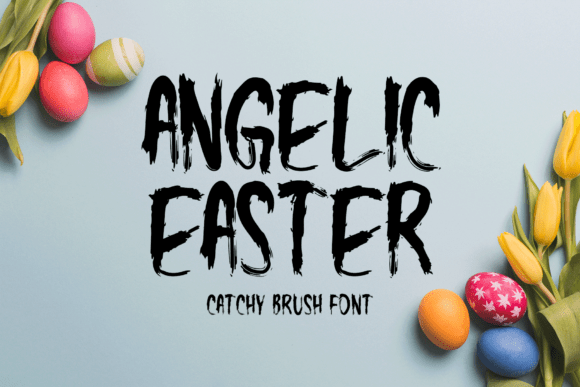
The Angelic Easter Font: Elevate Your Designs with Elegance and Creativity
I’ll never forget the time I was working on a client’s Easter-themed project, and I just couldn’t find the right font to bring it all together. The design needed something special – a touch of elegance, a dash of creativity, and a whole lot of personality. That’s when I stumbled upon the Angelic Easter font, and let me tell you, it was love at first sight! 💕
Angelic Easter is a beautifully handcrafted brush display font that brings a touch of sophistication and artistic flair to any project. Whether you’re designing stationery, logos, t-shirts, or print materials like posters and flyers, this font adds a unique and stylish touch. It’s also perfect for digital applications, including website headers, music covers, image sliders, and photo frames, ensuring your designs stand out with style and personality.
• 💫 Unique and elegant brush strokes that add a touch of sophistication to any design
• ✅ Highly versatile and adaptable to various design projects, from print to digital
• 🎨 Beautifully crafted with attention to detail, making it perfect for high-end designs
• 👍 Easy to read and understand, even in smaller font sizes
The Not-So-Perfect Bits 🤔
• ⚠️ Limited use in very small font sizes, as some details may get lost
• 🤔 Might not be the best fit for very formal or traditional designs, as it has a more artistic vibe
4. Experiment with OpenType features, such as glyphs and stylistic alternates, to add more personality to your text
4. Explore the font’s features, such as ligatures and swashes, to add more flair to your design
The Story Behind Angelic Easter: A Designer Inspiration
Angelic Easter was created with love and care by a talented font designer who wanted to bring a touch of elegance and creativity to the world of typography. Inspired by the beauty of hand-painted letters and the magic of the Easter season, this font is a true masterpiece. Whether you’re a designer, crafter, or creative hobbyist, Angelic Easter is sure to inspire you to create something truly special.
Q: Is Angelic Easter a difficult font to read?
No, Angelic Easter is designed to be easy to read and understand, even in smaller font sizes.